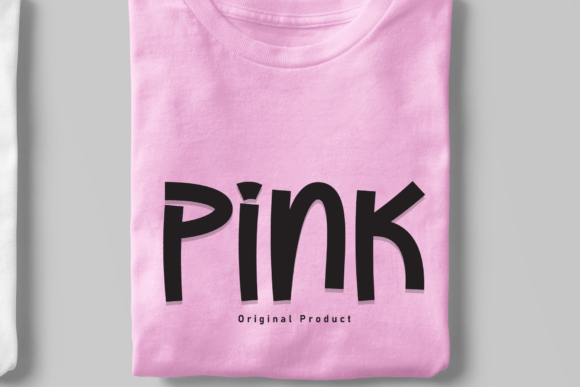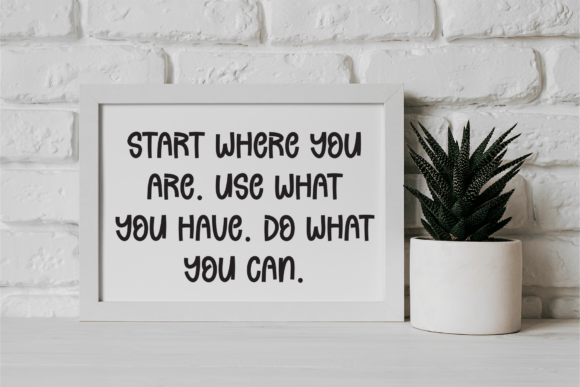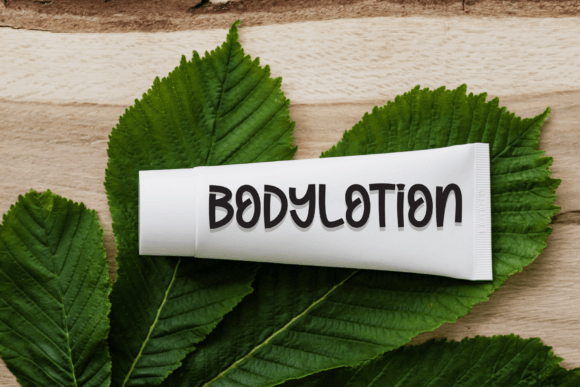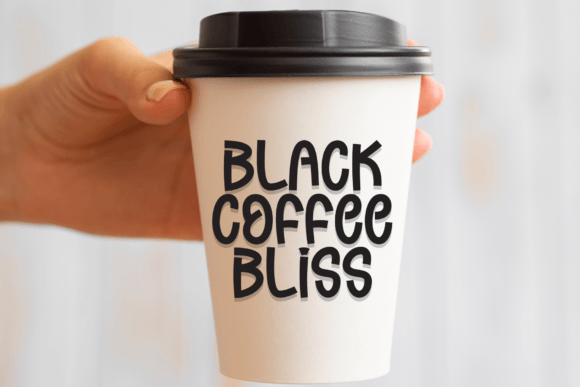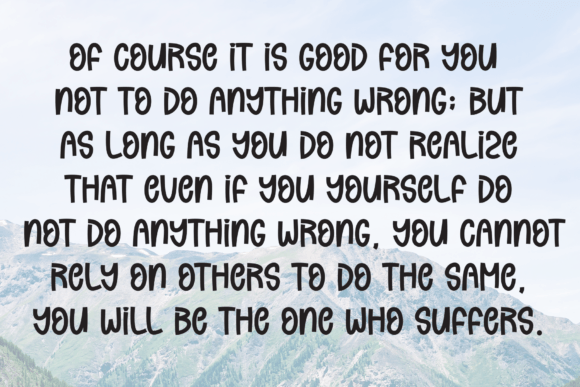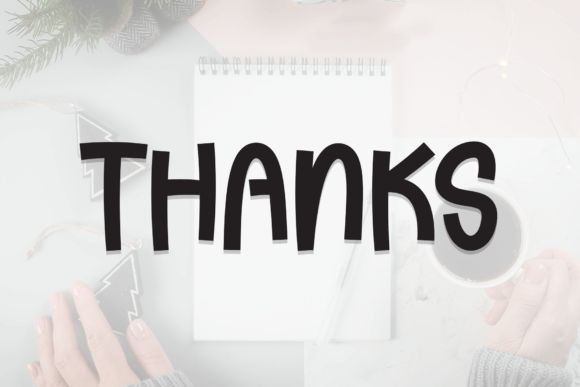
Introducing December Notebook Font: A Delightful Handwritten Display Font
Are you looking for a font that can add a touch of charm and cheerfulness to your designs? Look no further than December Notebook Font, a beautiful handwritten display font that is sure to captivate your audience. With its unique blend of sweet personality and casual elegance, this font is perfect for a variety of creative projects, from wedding invitations to heartfelt cards and designs that require a youthful spritz of joy.
A Font that Injects Enchantment into Writing
December Notebook Font is designed to bring a sense of enchantment to your writing. Its delicate and whimsical strokes are carefully crafted to create a sense of wonder and magic, making it perfect for special occasions such as weddings, anniversaries, and birthdays. Whether you’re a designer, crafter, or DIY enthusiast, this font is sure to inspire you to create something truly special.
Perfect for Creative Designs
December Notebook Font is an ideal choice for a variety of creative designs, including:
• Wedding Invitations: Add a touch of romance and whimsy to your wedding invitations with this beautiful font. Perfect for save-the-date cards, wedding programs, and other wedding-related designs.
• Heartfelt Cards: Create personalized and meaningful cards for special occasions such as birthdays, anniversaries, and holidays.
• Creative Designs: Add a youthful spritz of joy to your designs, including posters, flyers, and social media graphics.
Key Features of December Notebook Font
So, what makes December Notebook Font so special? Here are some of its key features:
• Handwritten Display Font: December Notebook Font is a handwritten display font that is designed to add a personal touch to your designs.
• Sweet Personality: This font has a sweet and charming personality that is sure to captivate your audience.
• Casual Elegance: December Notebook Font has a casual elegance that makes it perfect for a variety of creative designs.
• Unique Glyphs: This font comes with a range of unique glyphs and swashes that can be used to add a touch of whimsy to your designs.
Why Choose December Notebook Font?
So, why should you choose December Notebook Font for your next design project? Here are just a few reasons:
• Easy to Read: December Notebook Font is easy to read, even at small sizes, making it perfect for a variety of applications.
• Versatile: This font is versatile and can be used for a range of creative designs, from wedding invitations to posters and social media graphics.
• High-Quality: December Notebook Font is a high-quality font that is designed to deliver exceptional results.
In conclusion, December Notebook Font is a delightful and cordial handwritten display font that is sure to add a touch of charm and cheerfulness to your designs. With its unique blend of sweet personality and casual elegance, this font is perfect for a variety of creative projects. Whether you’re a designer, crafter, or DIY enthusiast, December Notebook Font is an ideal choice for anyone looking to add a dash of fun and whimsy to their designs.
Tips and Tricks for Using December Notebook Font
Here are a few tips and tricks for getting the most out of December Notebook Font:
• Experiment with Sizes: Try experimenting with different sizes to see how December Notebook Font looks in different contexts.
• Pair with Other Fonts: Consider pairing December Notebook Font with other fonts to create a unique and eye-catching design.
• Use Swashes and Glyphs: Don’t be afraid to get creative with the swashes and glyphs that come with December Notebook Font.
By following these tips and tricks, you can unlock the full potential of December Notebook Font and create designs that are truly special.